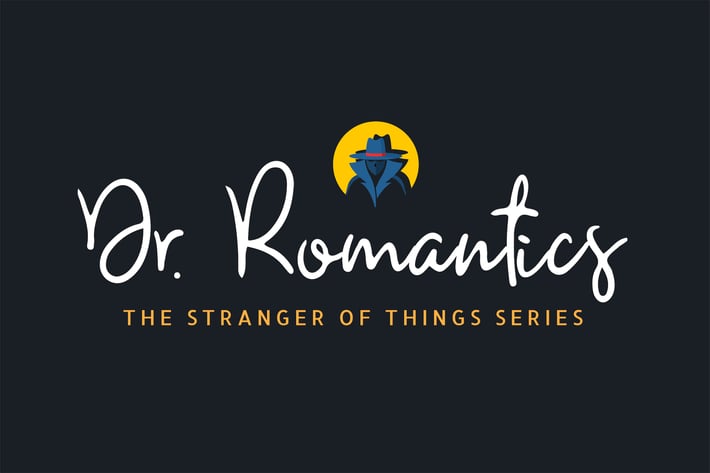
Romantics - Handwritten script Font
Romantics - Handwritten script Font script font with handlettering pen Style.
Suitable for design, element design, wedding, event, t-shirt, logo, badges, sticker,
and awesome work, etc...